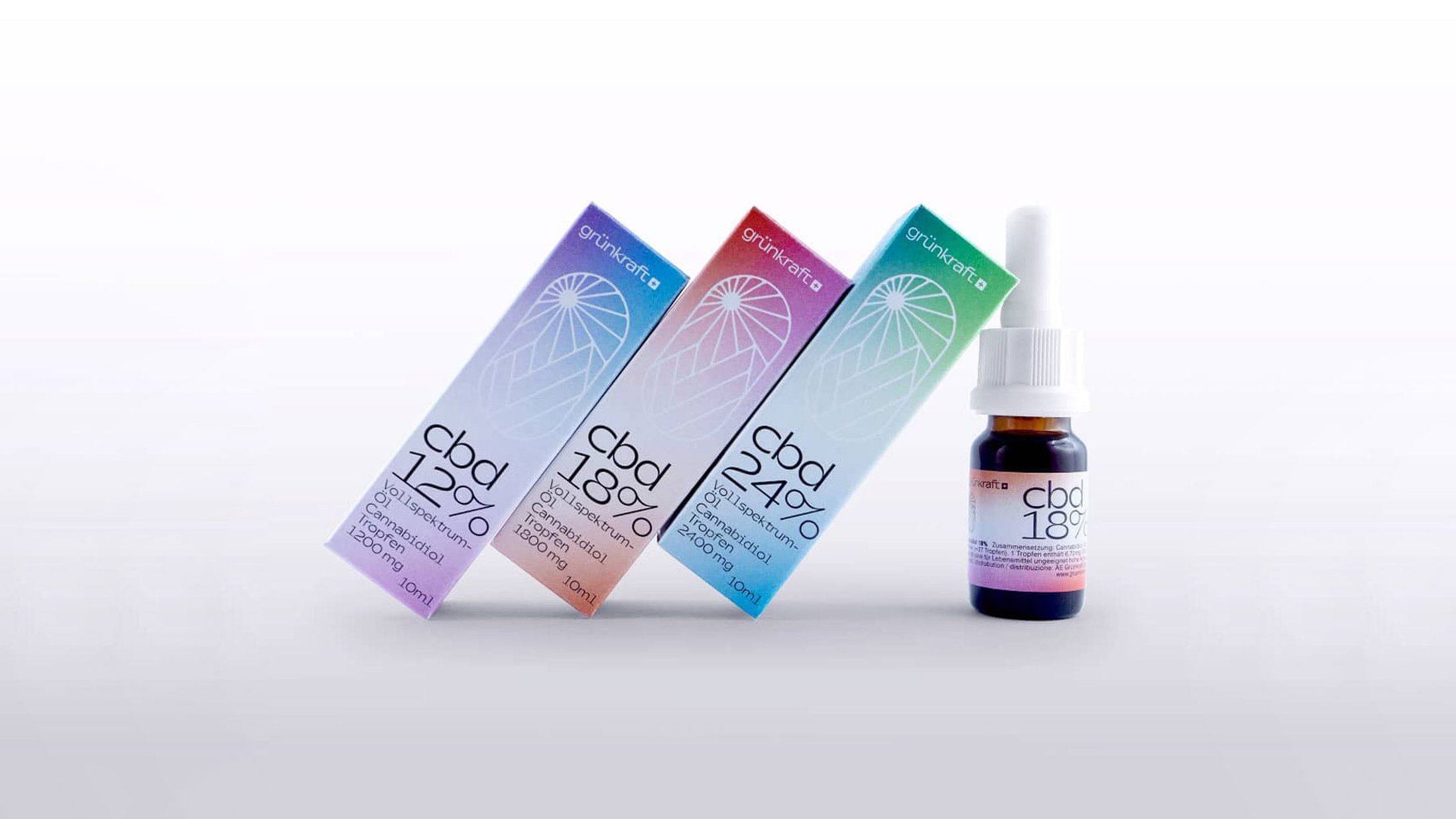
When a typeface is expanded to include a monospaced style, this usually means: Letterforms get squeezed into a straitjacket, with added bars on ‘i’ and ‘l’ – and that’s it. To Swiss Typefaces, “usually” is a foreign word, though. Euclid Mono Vanguard brings a distinct style to the table, expanding the palette of typographic expression. It redefines what a geometric mono can be, while staying true to the Euclid spirit. The accelerating forms for ‘S’/‘s’ and ‘Z’/‘z’ thwart any rigidity that may be caused by the fixed widths. ‘M’ and ‘W’/‘w’ have diagonals, but not like you’d think. Together with the capital ligatures, they represent a contemporary nod to the special features of Avant Garde Gothic, a milestone of geometric type design that keeps providing inspiration half a century after its release. There are alts for those dancing glyphs, but don’t expect to find a safe fallback. Circle + right angle: ‘Q’ sums up the Euclidian mindset.
Euclid Mono